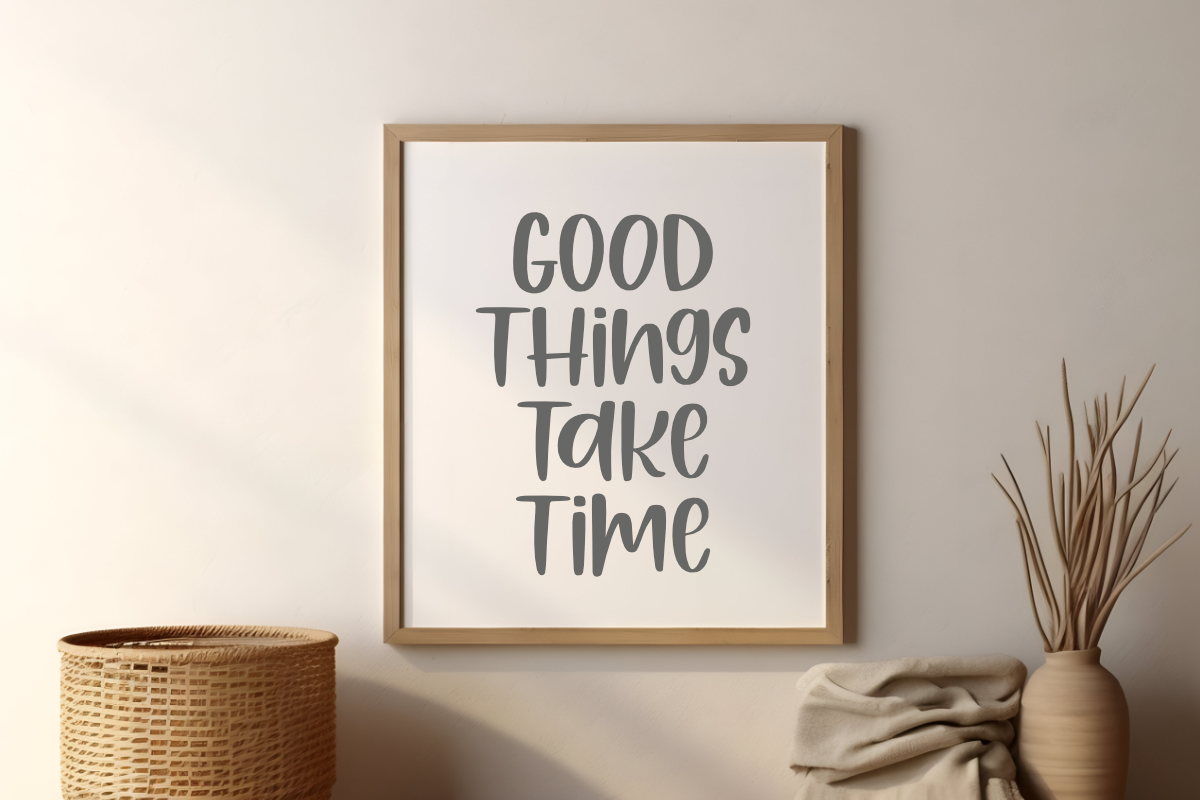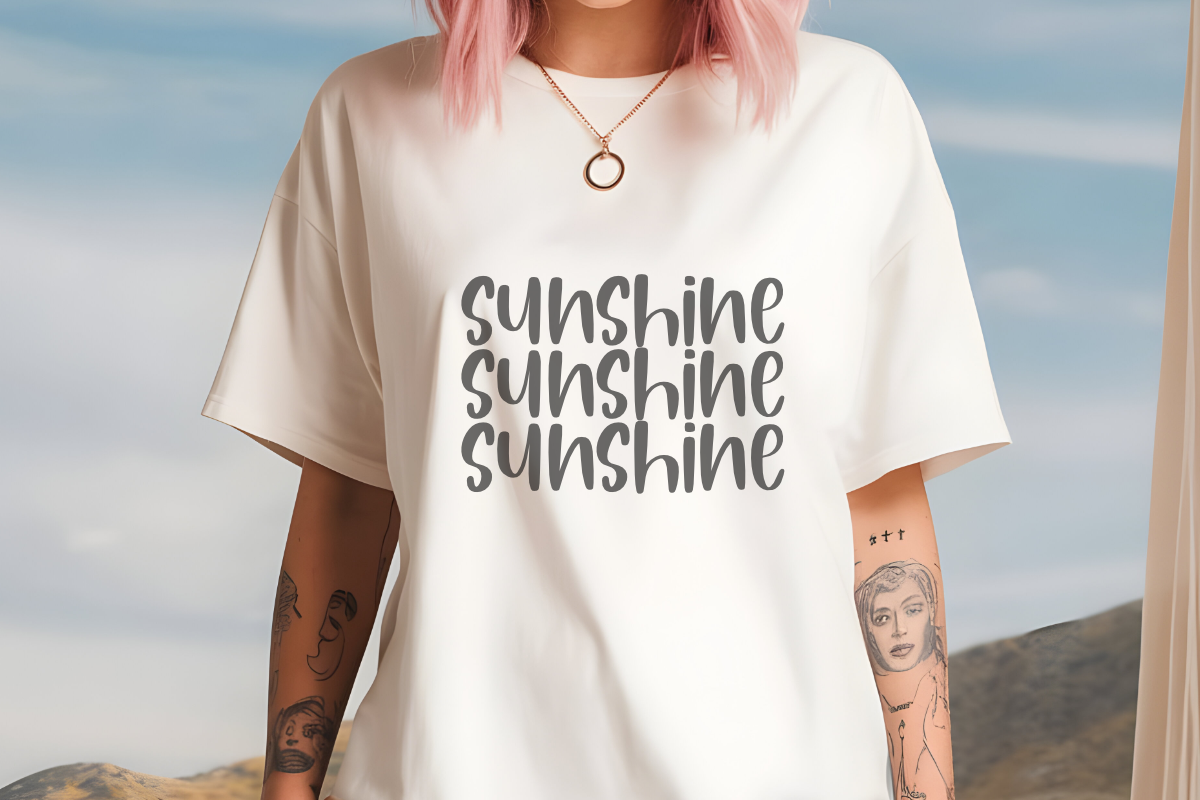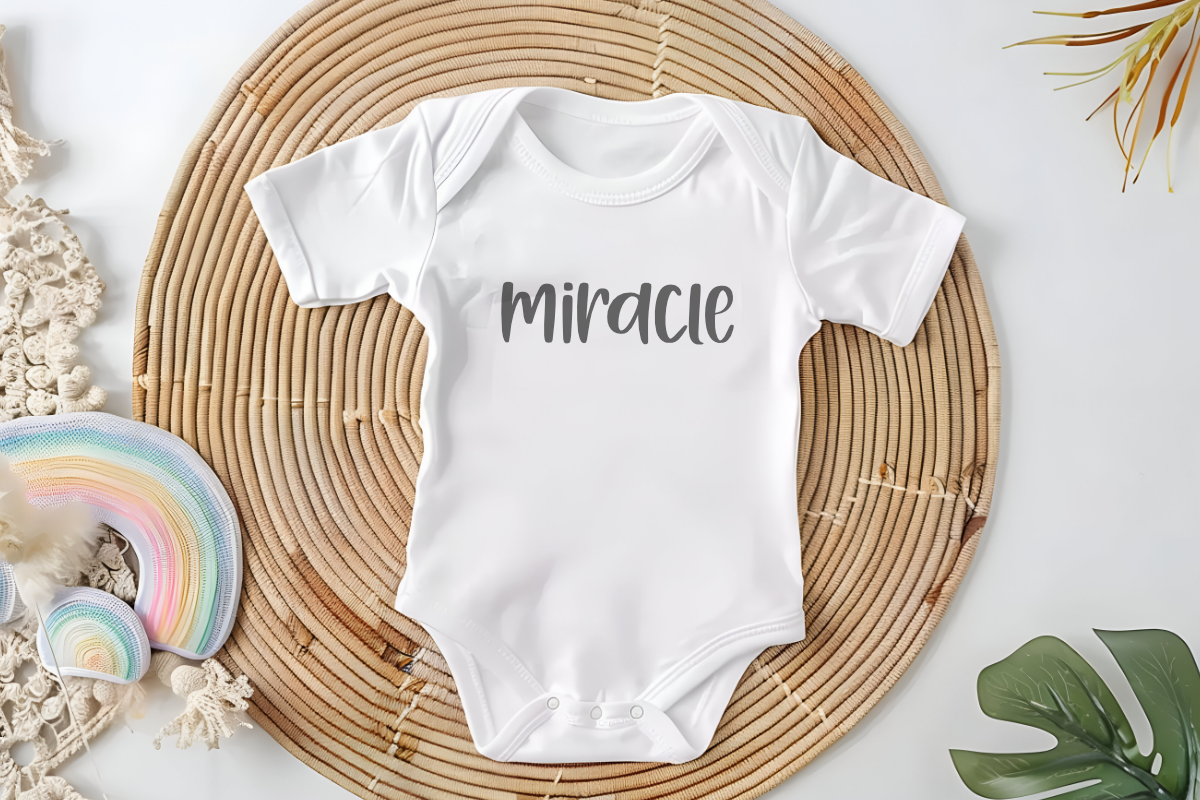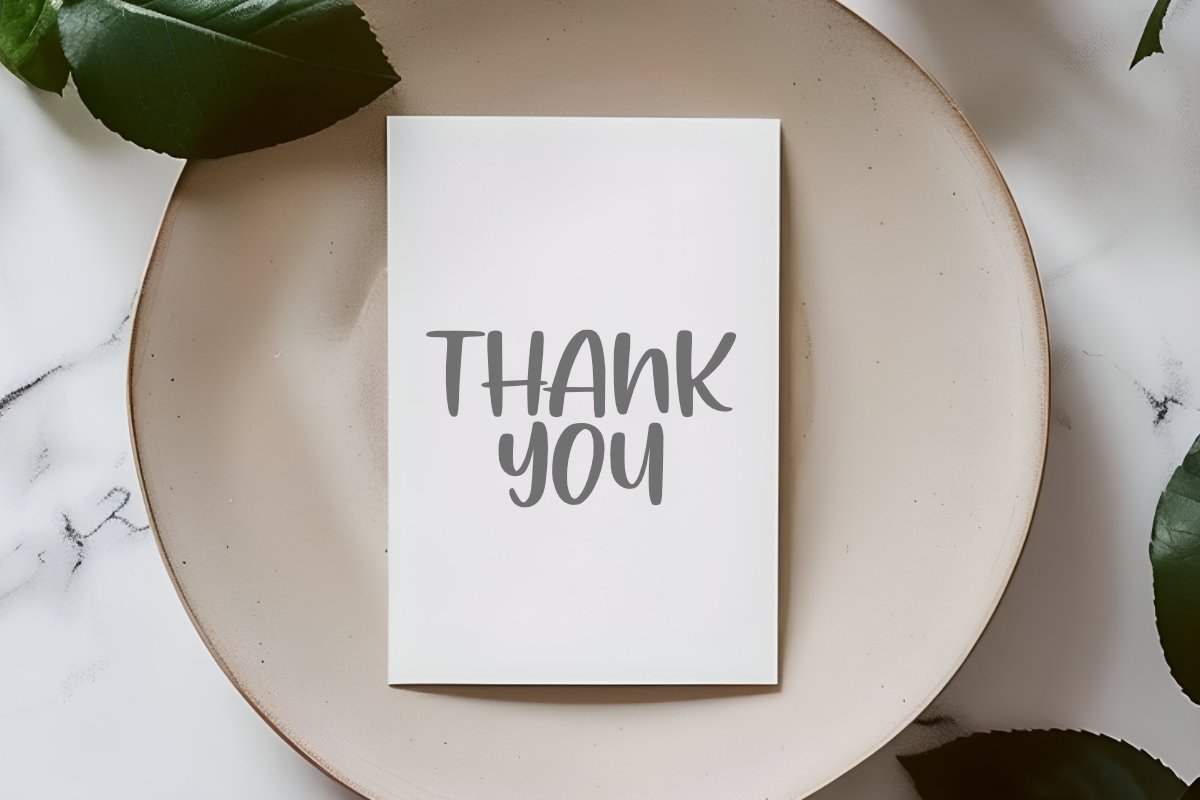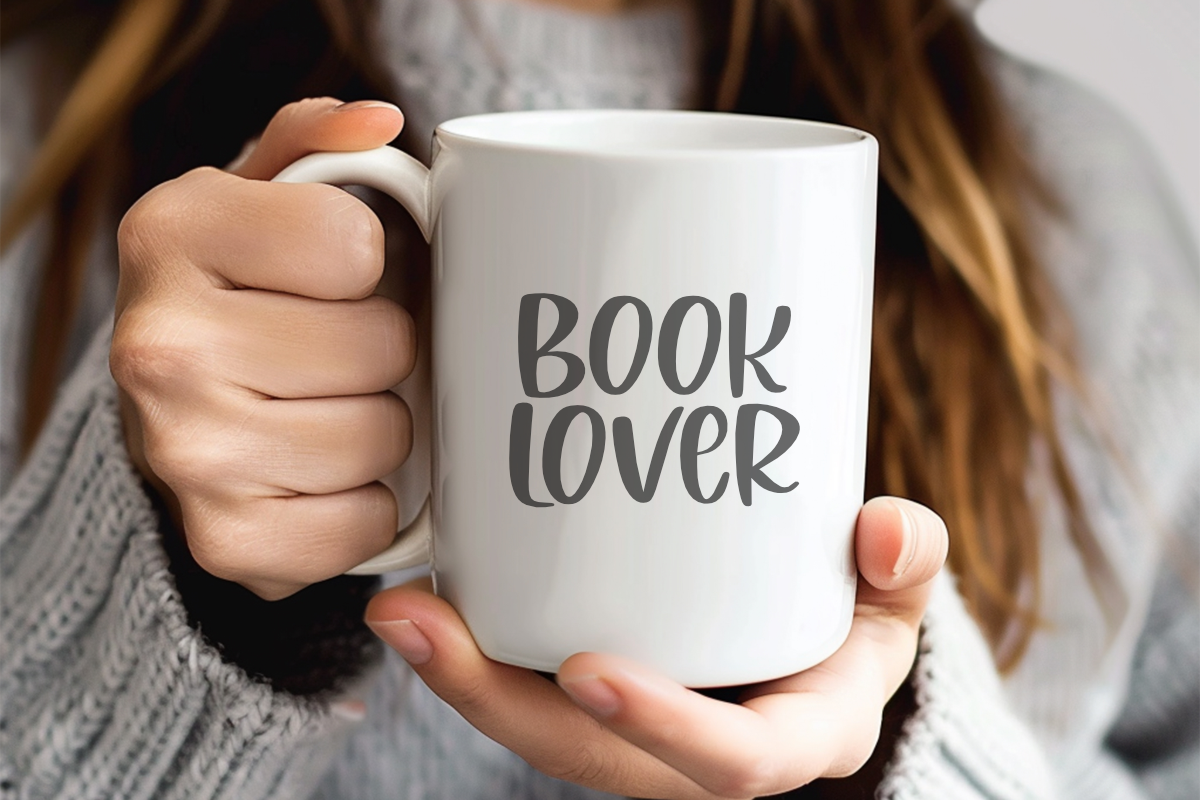
Happy Tumbler - Playful Handwriting
Happy Tumbler is a fun and cheerful handwritten font that brings a touch of playfulness to your creative projects. With its smooth strokes and friendly vibes, it's perfect for designing tumblers, mugs, Mother's Day crafts, kids' shirts, stickers, and much more! Add a personal and joyful touch to every design with Happy Tumbler.